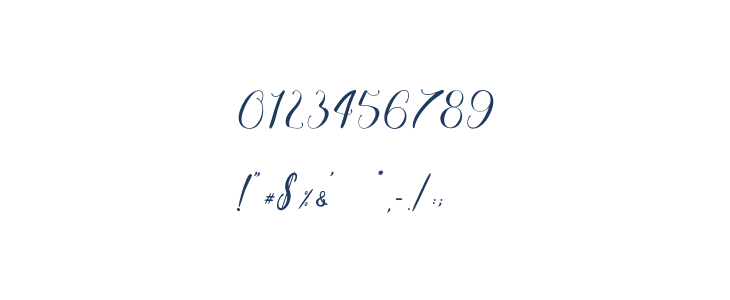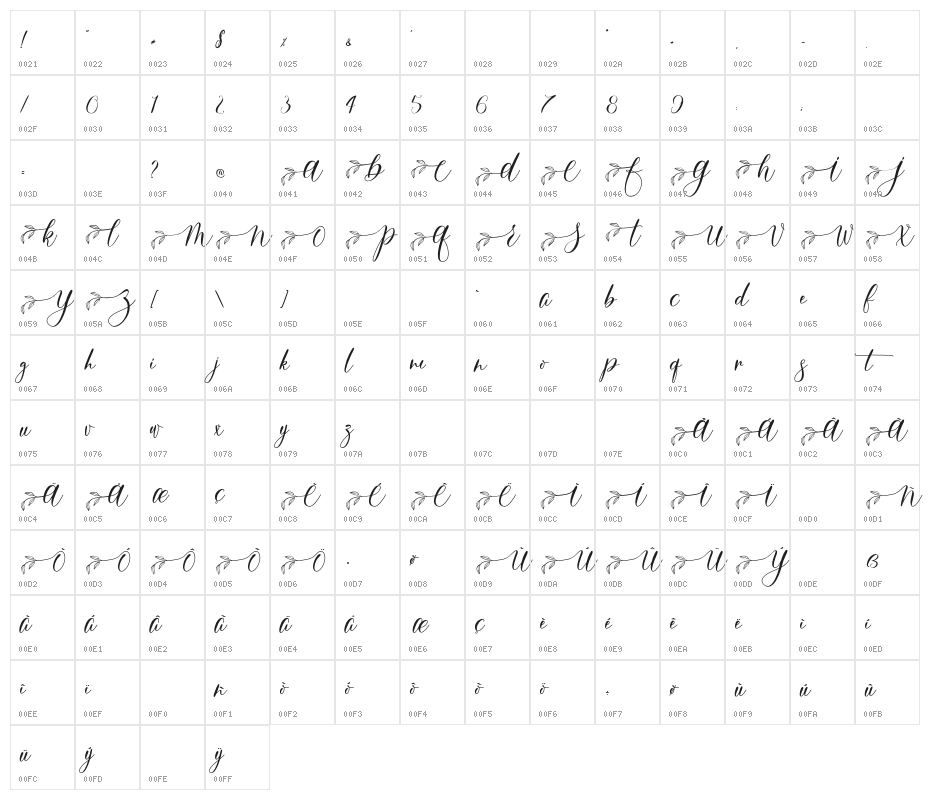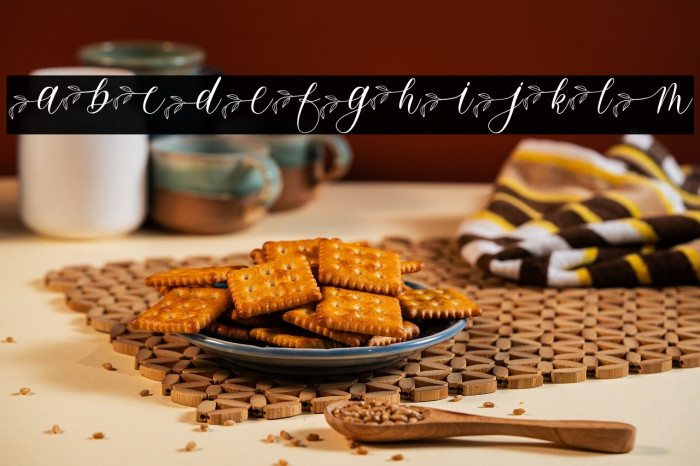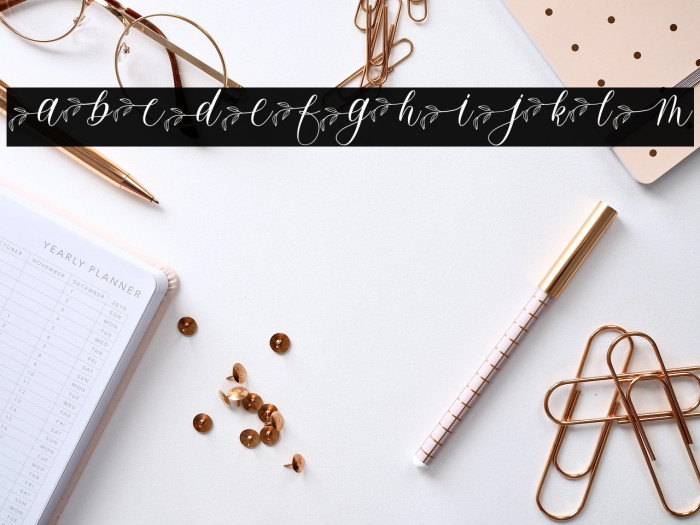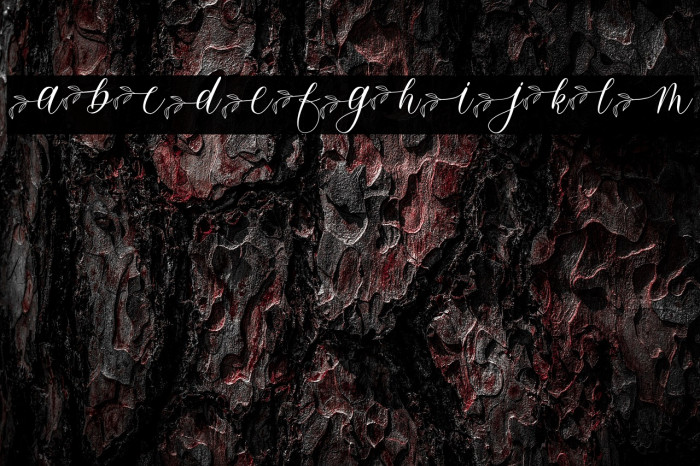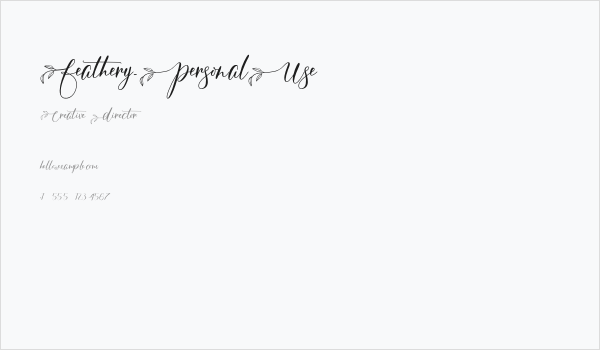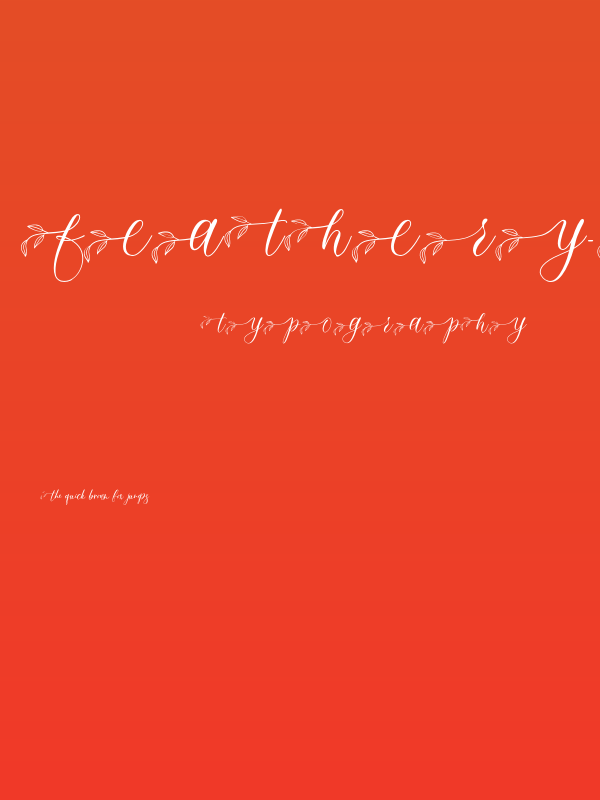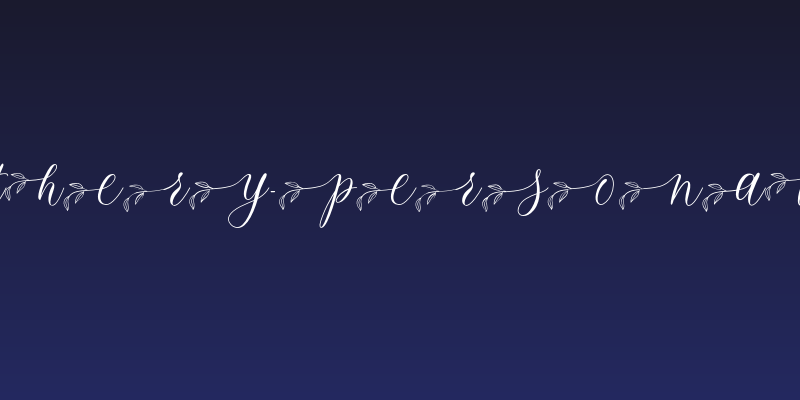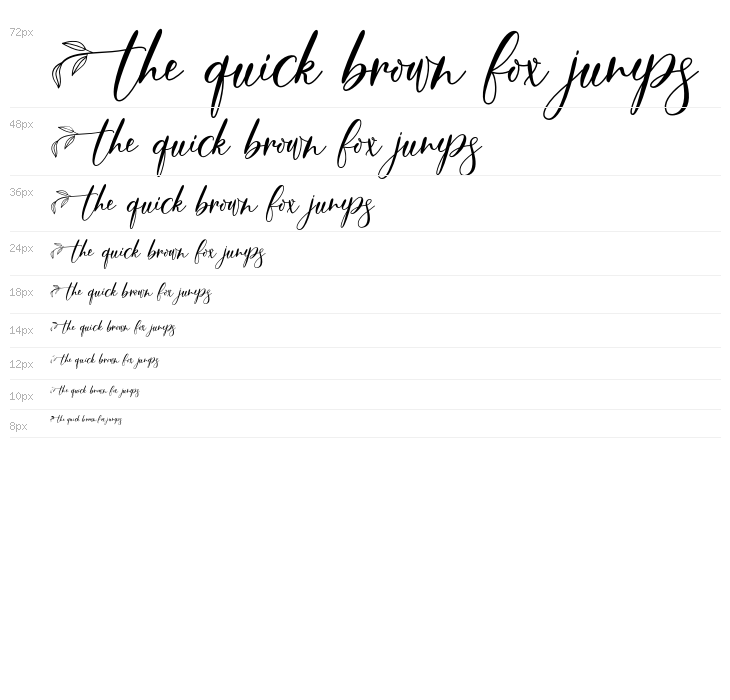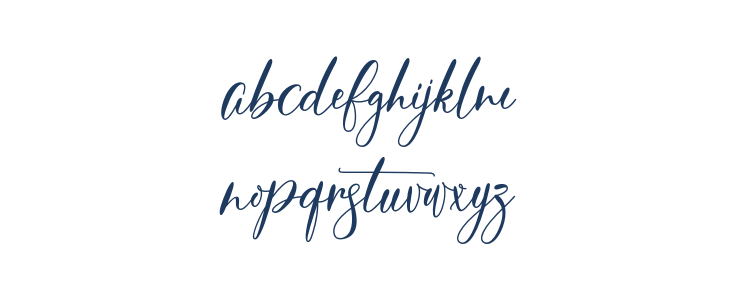
Feathery-PersonalUse Font
Feathery-PersonalUse Description
This font features an elegant and flowing script style, characterized by its delicate, feather-like strokes and graceful curves. The uppercase letters are bold and expressive, while the lowercase letters maintain a consistent, fluid motion, often connecting seamlessly. The numerals are stylish and maintain the overall aesthetic of the script, with a slight slant that adds to the dynamic feel. Special characters are thoughtfully designed to complement the letterforms, ensuring a cohesive look. This font exudes a sense of sophistication and charm, making it ideal for projects that require a personal touch.